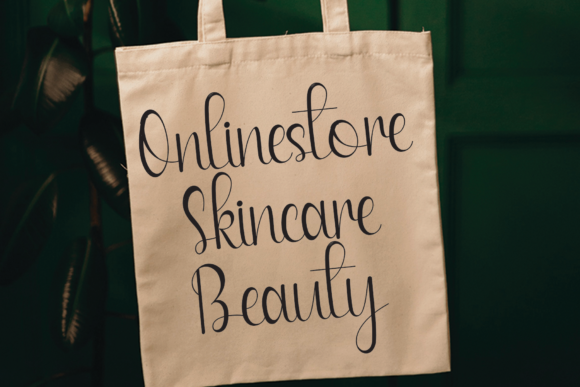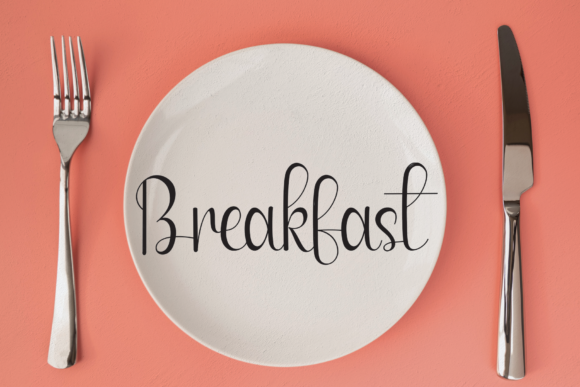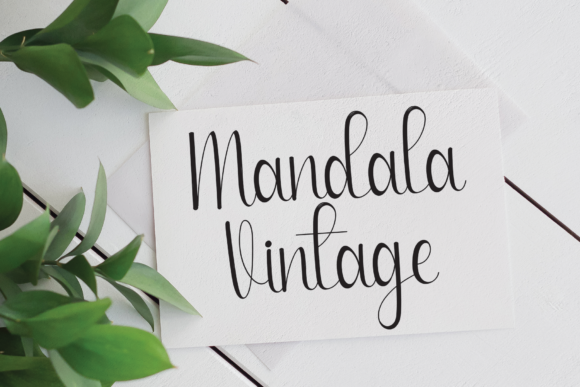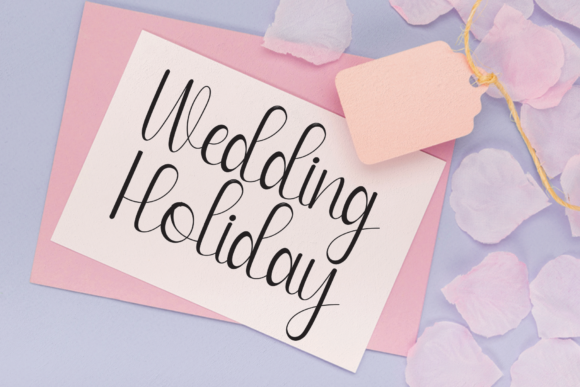
Handmade Farmhouse Font: Rustic Charm for Your Designs
“Handmade Farmhouse” is a charming and versatile script font that brings a touch of rustic playfulness to various design projects. Its smart and whimsical letterforms make it ideal for adding a warm and welcoming vibe to your creative endeavors.
Handmade Farmhouse Font Applications: From Weddings to Branding
In wedding invitations, “Handmade Farmhouse” sets the tone for a cozy and heartfelt celebration. Its playful yet refined design adds charm and personality to your invitations, creating a sense of anticipation and joy for the upcoming event.
For thank you cards, the font’s handcrafted appearance conveys authenticity and sincerity. It adds a personal touch to your expressions of gratitude, making recipients feel valued and appreciated.
Enhancing Messages with Handmade Farmhouse Script
In quotes and greeting cards, “Handmade Farmhouse” adds a touch of rustic elegance to the sentiment. The font’s playful script infuses words with whimsy and warmth, making the message more engaging and relatable.
When incorporated into logos, “Handmade Farmhouse” brings a sense of authenticity and uniqueness. Its hand-drawn style conveys a down-to-earth and approachable brand identity, making your logo stand out and resonate with customers who appreciate a genuine touch.
The Versatility of Handmade Farmhouse Typography
Business cards designed with “Handmade Farmhouse” exude a friendly and inviting vibe. The font’s playful yet professional appearance adds character to your contact information and branding, making your card memorable.
Handmade Farmhouse Font for Rustic and Authentic Designs
In various design projects requiring a customized touch, “Handmade Farmhouse” shines as a versatile and delightful choice. Its rustic playfulness enhances the overall aesthetics of your creations, adding charm and character that appeals to a wide audience.
Whether it’s a rustic event, heartfelt message, or branding endeavor, “Handmade Farmhouse” is a font that brings a touch of warmth and authenticity to your creative work.